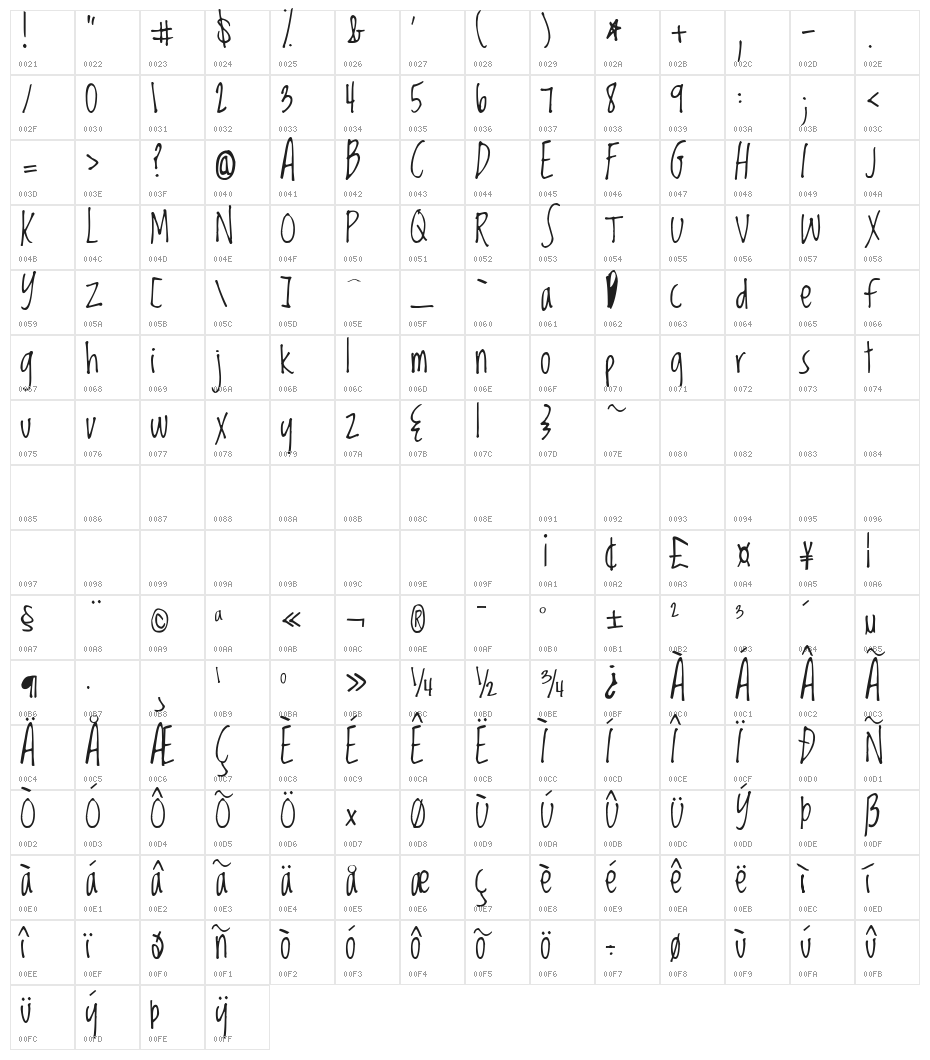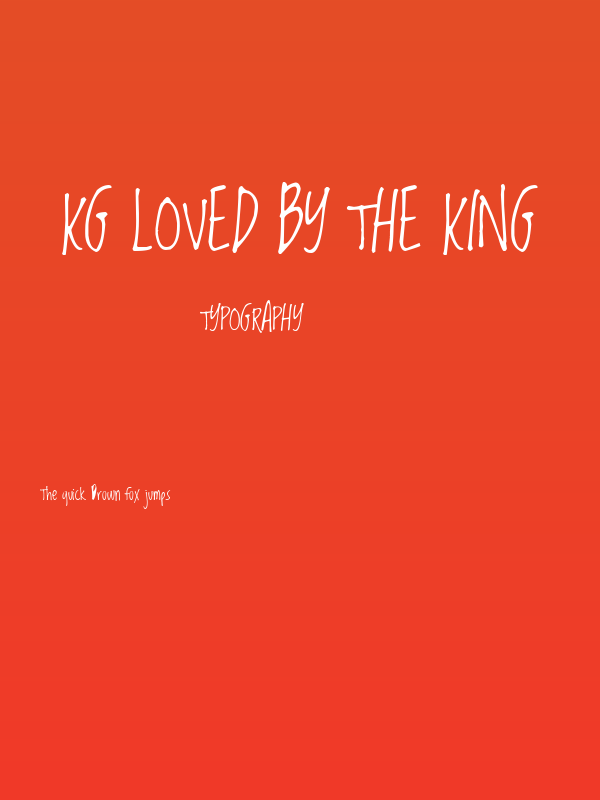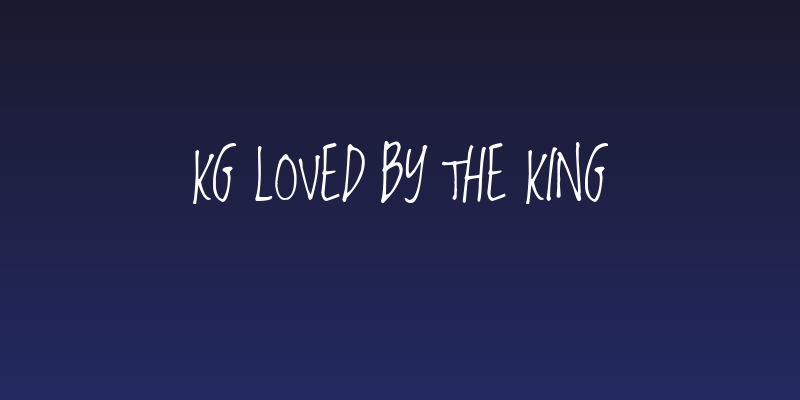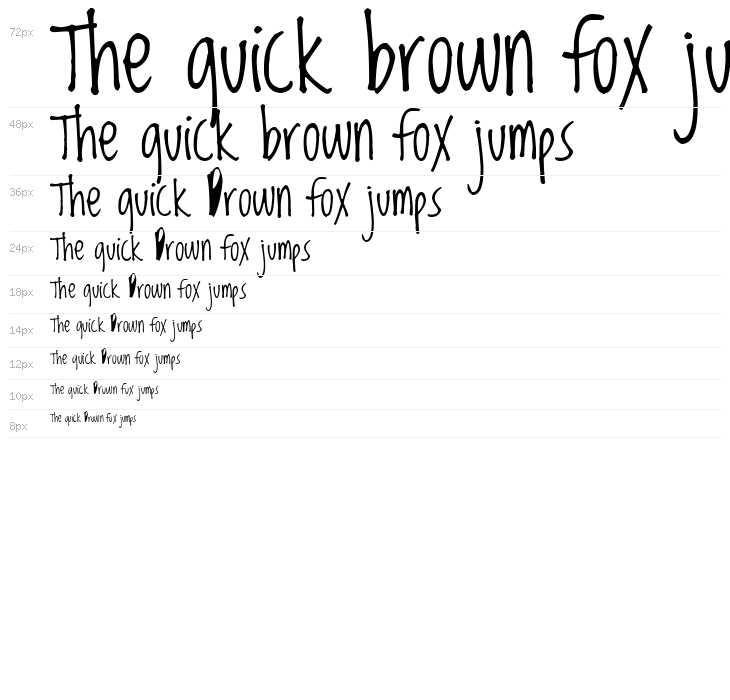
KG Loved by the King Font
KG Loved by the King Description
This font features a playful and informal handwritten style, characterized by its uneven strokes and casual appearance. The letters are tall and slightly narrow, with a whimsical touch that gives them a friendly and approachable feel. The uppercase and lowercase letters maintain a consistent style, while the numbers and special characters complement the overall design. The strokes vary in thickness, adding a dynamic and lively quality to the text. This font is perfect for projects that require a personal and heartfelt touch, such as greeting cards, invitations, and children's books.
Overall StyleCasual
Proposed ProjectsIdeal for greeting cards, invitations, children's books, and personal projects.